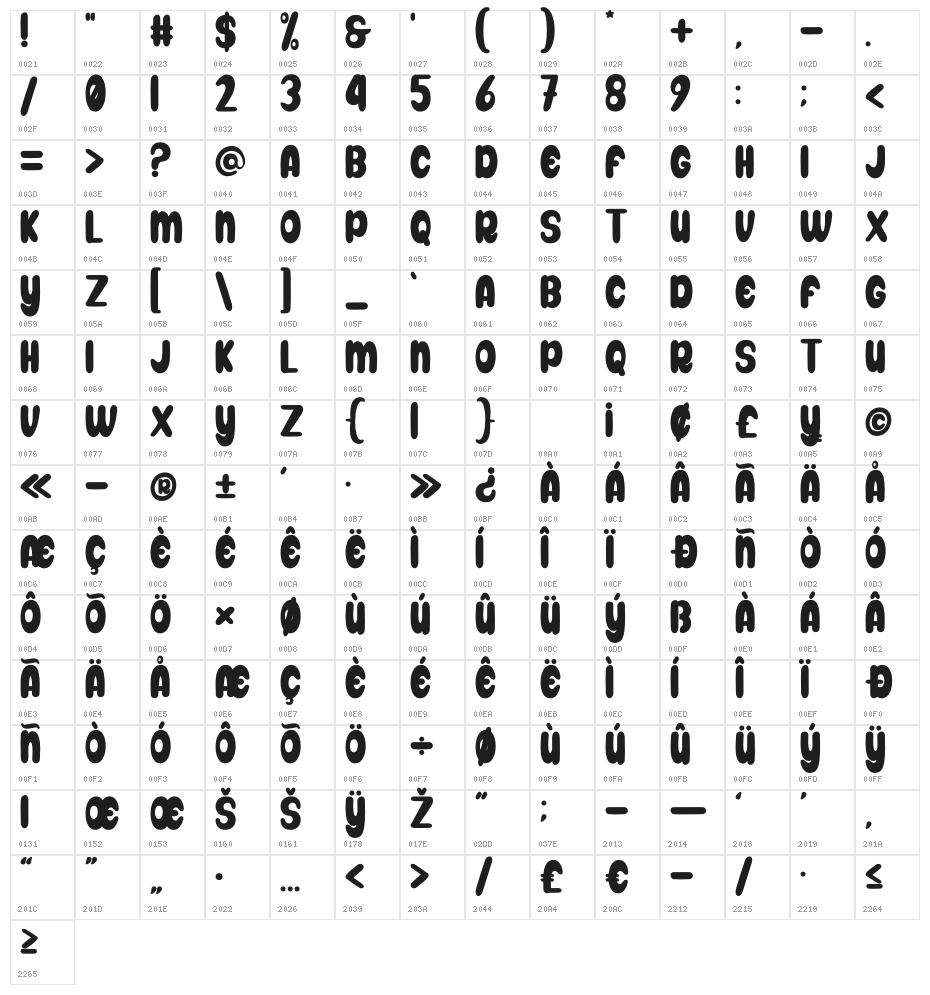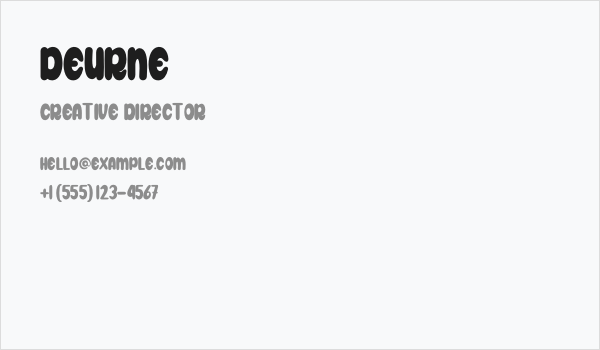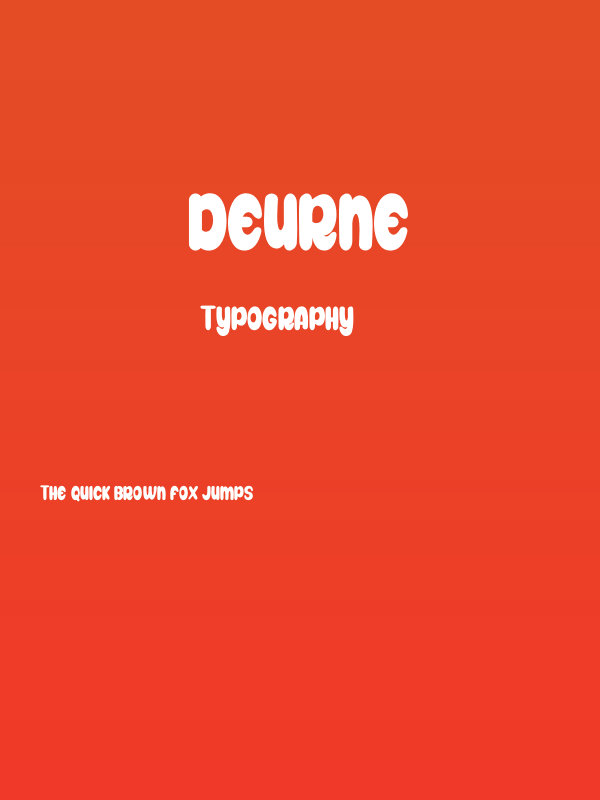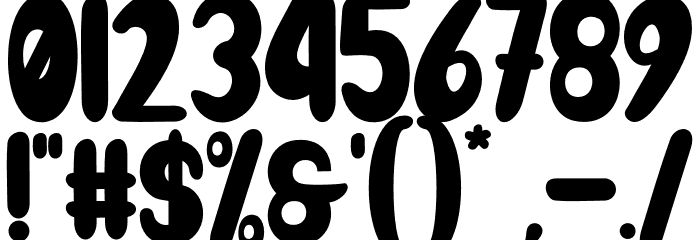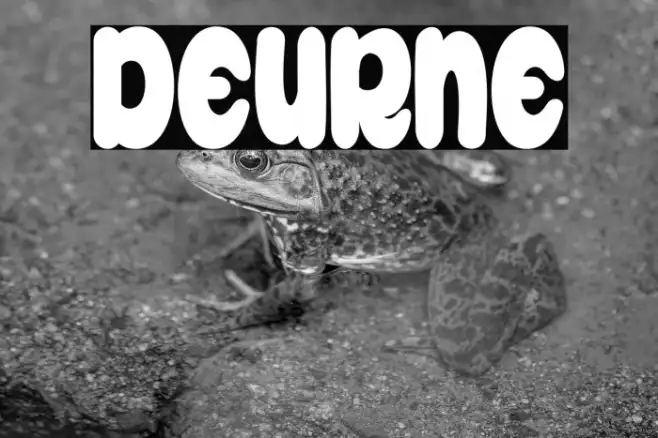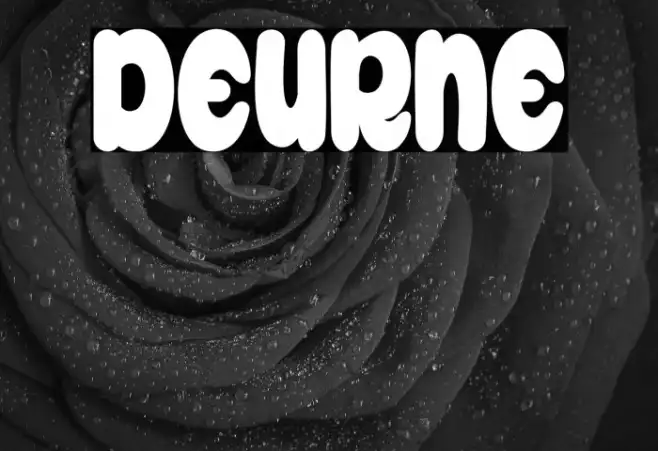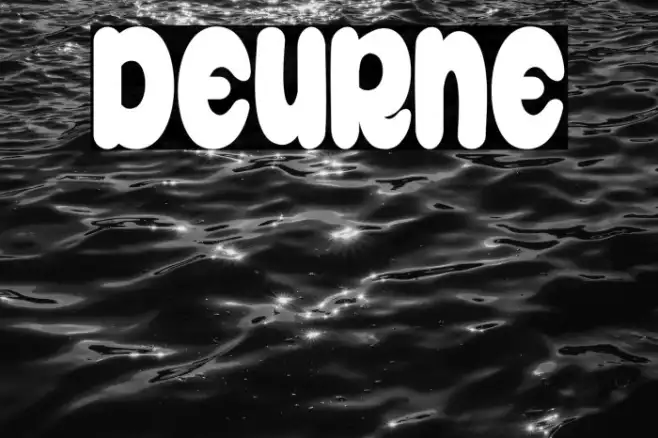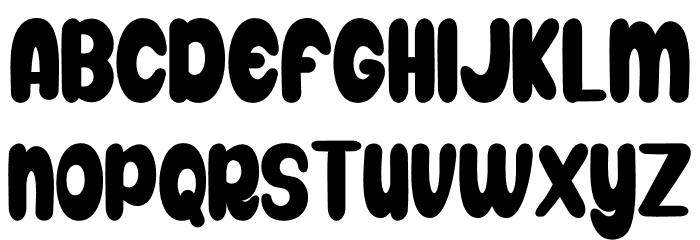
Deurne Font
Deurne Description
This font features a bold and playful design with rounded edges and a thick, consistent stroke width. The characters are uniformly wide, giving it a strong presence and making it highly legible. The uppercase and lowercase letters maintain a cohesive style, with the lowercase letters slightly smaller but equally bold. Numbers and special characters follow the same design principles, ensuring a harmonious look across all elements. The font's playful nature is emphasized by its bubbly appearance, making it ideal for projects that require a fun and engaging aesthetic.
| Overall Style | Playful, Modern |
| Proposed Projects | Ideal for children's books, playful branding, posters, and social media graphics. |